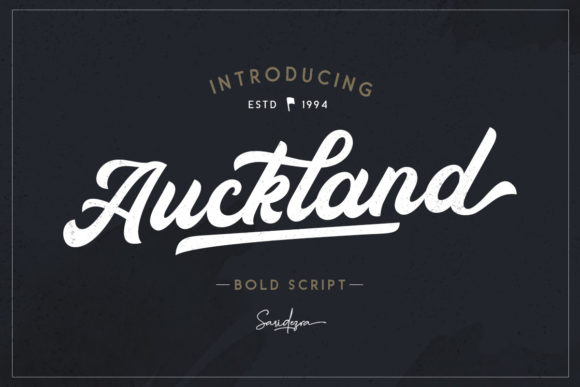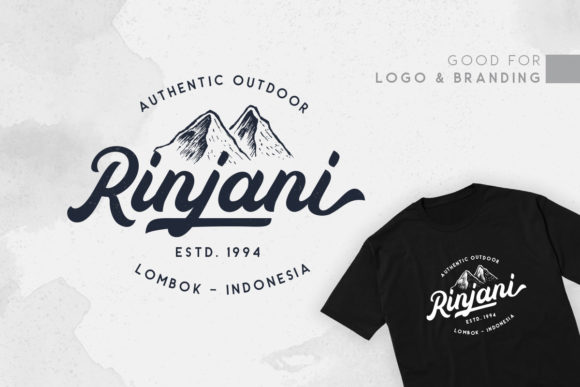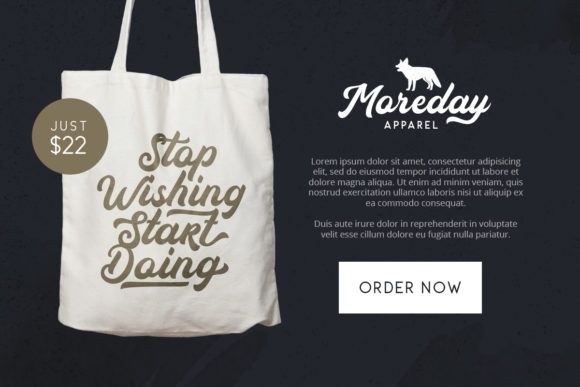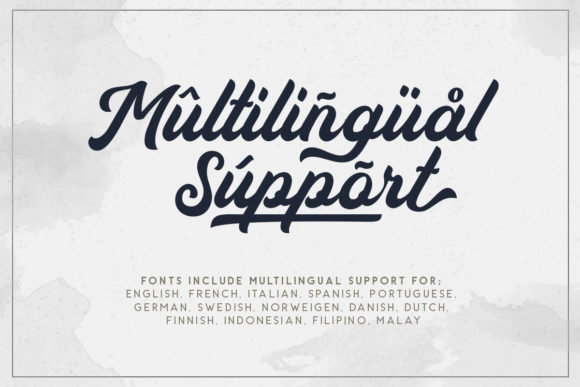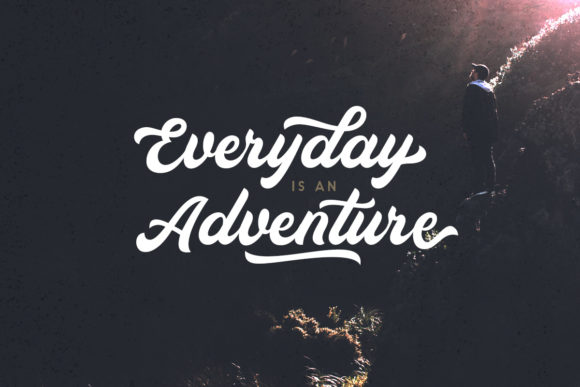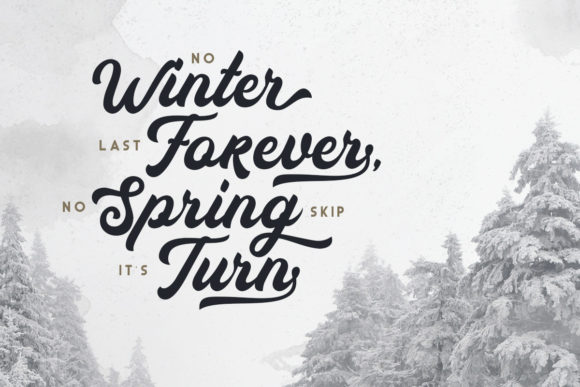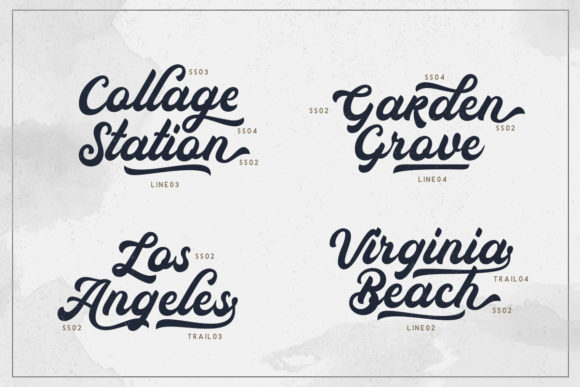
Auckland Script Font
About Auckland Script Font
The Auckland is a bold script font. It has a strong look which can be used for logos, branding, quotes, and every other design which needs to stand out.